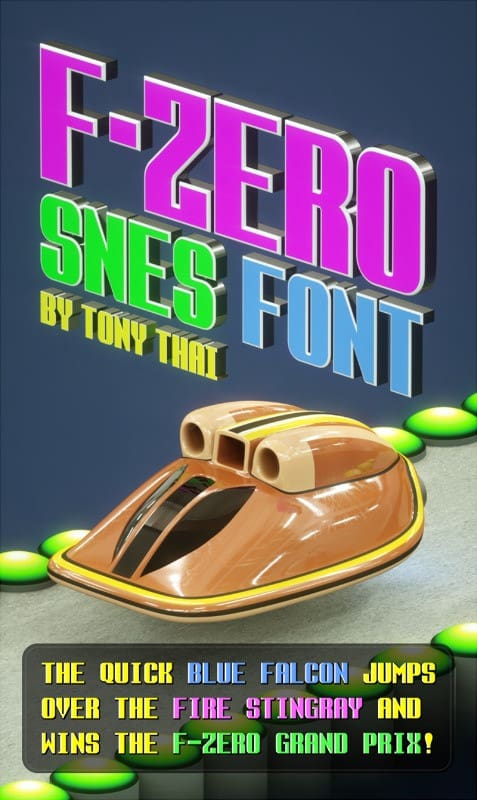
F-Zero SNES Font
F-Zero SNES Font, this font was inspired by the 7 x 11 pixel font as seen in F-Zero for the SNES. I’ve also created my own versions of the missing characters and symbols.